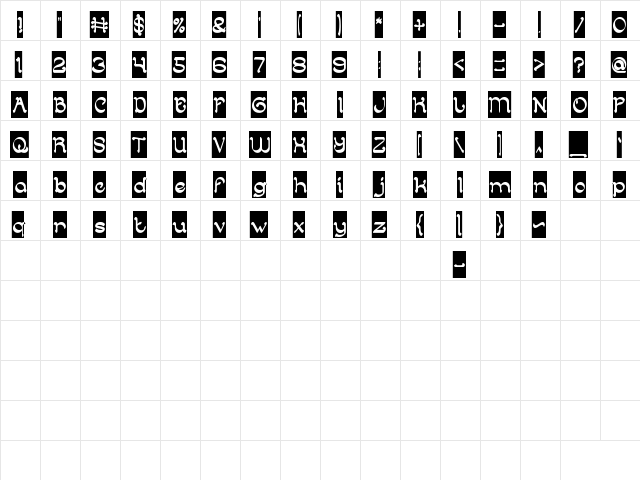
ARABIAN KNIGHT-Inverse Regular
Design Context for ARABIAN KNIGHT-Inverse Typeface
ARABIAN KNIGHT-Inverse is a composed and adaptable typeface that performs quietly and consistently across a wide range of design contexts.
Pro Tip: Use ARABIAN KNIGHT-Inverse in both headline and body roles to test its range before committing to a single application.